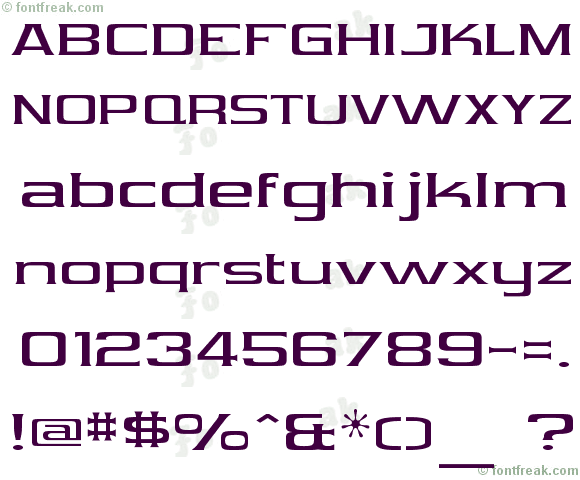
Vibrocentric
About Vibrocentric
Vibrocentric is a distinctive sans-serif font designed by Ray Larabie, characterized by its modern aesthetic and geometric shapes. This font features a balanced stroke weight that provides a sense of stability while maintaining a contemporary flair. The clean lines and minimalistic design ensure excellent legibility, making it suitable for various applications. The spacing between characters is thoughtfully designed, allowing for clarity and ease of reading, whether in large headlines or smaller text.
The Vibrocentric font is particularly well-suited for a range of creative projects. Its modern look makes it ideal for tech startups, where a clean and cutting-edge appearance is essential. Additionally, graphic designers can use this font in branding materials, such as business cards and promotional flyers, to make a strong visual impact. It's also a fantastic choice for website headers, giving a sleek and professional touch to online content. Moreover, Vibrocentric works wonderfully for posters, especially in events focused on innovation and creativity, where a unique font can capture attention.
What sets the Vibrocentric font apart is its ability to blend modernity with readability. The unique geometric forms and balanced proportions create a visual harmony that appeals to both creators and viewers alike. For anyone seeking a fresh typeface, the Vibrocentric font free download is an excellent choice that promises to elevate any design project.